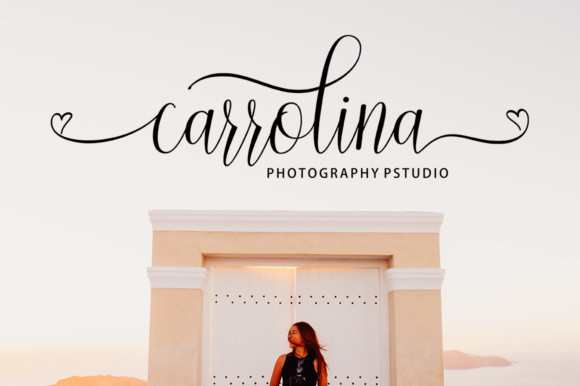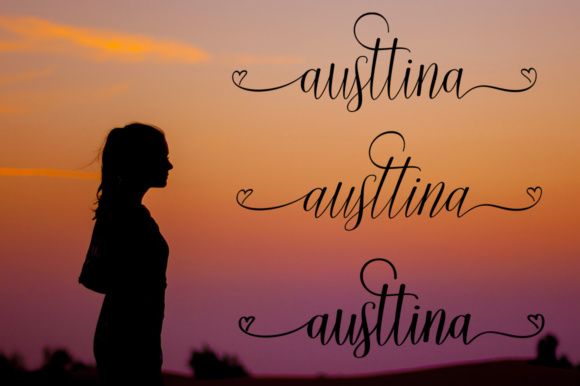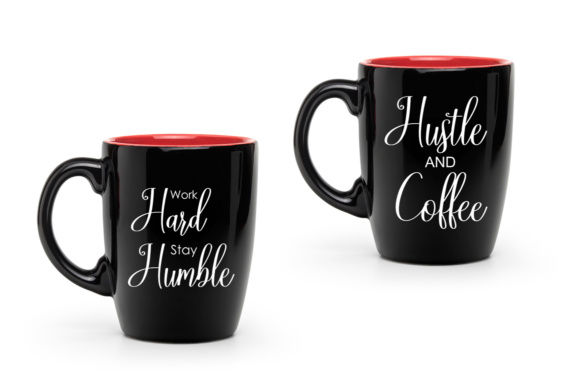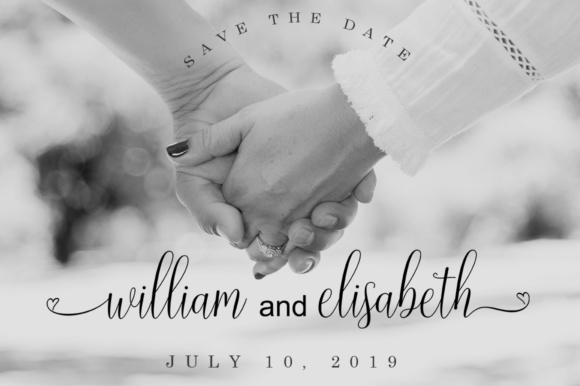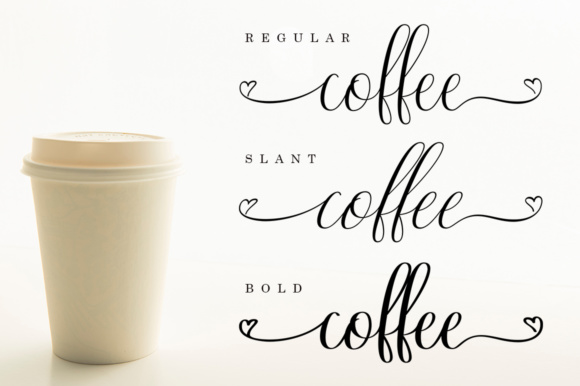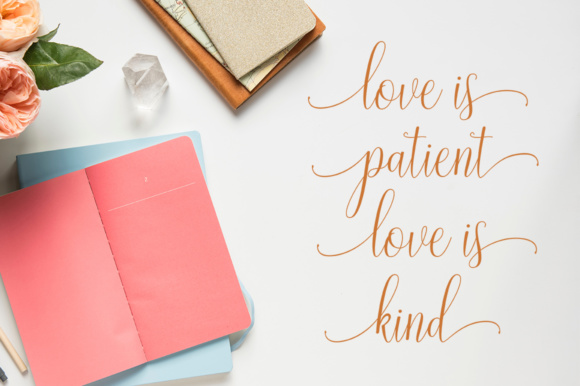
Austtina Font: Elevate Your Designs with Elegance and Whimsy
Are you on the hunt for a font that adds a touch of sweetness and sophistication to your designs? Look no further than Austtina, a charming hand-lettered font trio that’s perfect for a wide range of projects. With its dynamic dancing baseline, Austtina exudes a casual yet elegant feel that’s sure to captivate your audience.
The Characteristics of Austtina Font
Austtina is more than just a font – it’s a versatile design tool that can elevate your projects with its unique blend of whimsy and refinement. Here are some of its key characteristics:
- Hand-lettered charm: Austtina boasts a beautiful, hand-crafted aesthetic that’s perfect for designs that require a personal touch.
- Dynamic dancing baseline: The font’s irregular baseline gives it a lively, organic feel that’s sure to add visual interest to your designs.
- Elegant and feminine: Austtina’s refined lines and curves make it an excellent choice for projects that require a touch of sophistication and elegance.
- High-quality design: With its clear and crisp lines, Austtina is suitable for a wide range of applications, from print materials to digital platforms.
Perfect for Wedding and Stationery Designs
Austtina is a dream come true for wedding planners, stationery designers, and crafters. Its elegant and feminine charm makes it perfect for:
- Wedding invitations: Set the tone for your special day with Austtina’s beautiful, hand-lettered script.
- Thank you cards: Express your gratitude with Austtina’s charming and refined font.
- Bridal showers: Create memorable invitations and decorations with Austtina’s whimsical and elegant design.
- Stationery and paper crafts: Add a touch of sophistication to your paper crafts, journals, and planners with Austtina’s beautiful font.
Beyond Wedding and Stationery: Using Austtina for Branding and Social Media
Austtina’s versatility doesn’t stop at wedding and stationery designs. Its high-quality design and elegant charm make it an excellent choice for:
- Branding and logos: Use Austtina to create a unique and memorable brand identity that stands out from the crowd.
- Social media graphics: Elevate your social media presence with Austtina’s beautiful font, perfect for creating engaging graphics, quotes, and posts.
- Packaging and product design: Add a touch of elegance to your product packaging and design with Austtina’s refined font.
Tips for Using Austtina Font Effectively
To get the most out of Austtina, here are some tips to keep in mind:
- Experiment with font combinations: Pair Austtina with other fonts to create a unique and visually appealing design.
- Play with colors and textures: Add depth and interest to your design with Austtina’s beautiful font and a range of colors and textures.
- Use it sparingly: Austtina’s elegant charm can be overwhelming if overused. Balance it with simpler fonts to create visual harmony.
Austtina font is a versatile and beautiful design tool that’s perfect for a wide range of projects. With its elegant and feminine charm, dynamic dancing baseline, and high-quality design, Austtina is sure to elevate your designs and captivate your audience. Whether you’re a designer, crafter, or DIY enthusiast, Austtina is an excellent choice for adding a touch of whimsy and sophistication to your work.